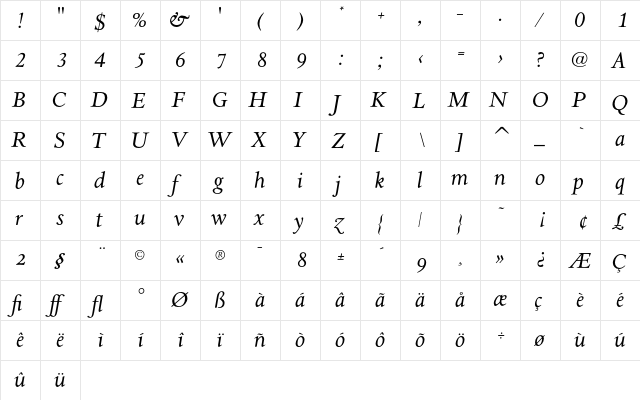
AsdanteItalic Regular
Design Context for AsdanteItalic Typeface
AsdanteItalic takes a measured approach to typography — its balanced proportions and neutral character make it a reliable workhorse for both digital and print work. Its italic angle brings a sense of urgency and motion to the letterforms.
Pro Tip: Use AsdanteItalic for emphasis, pull quotes, and subheadings where its slanted energy can add rhythm to the layout.